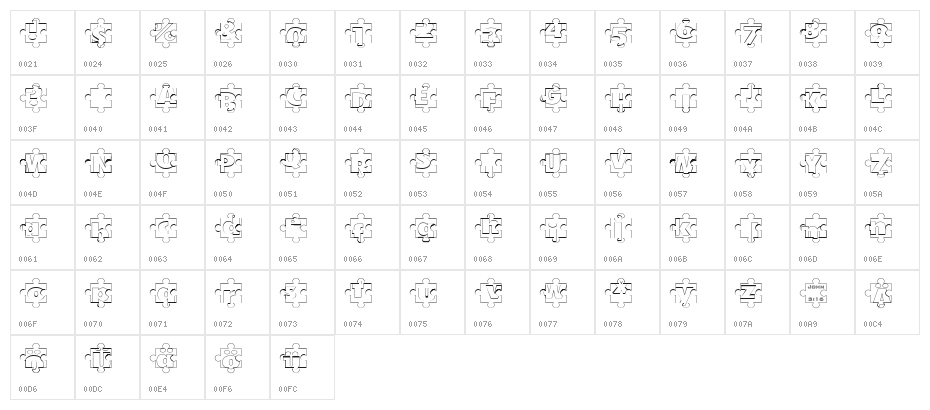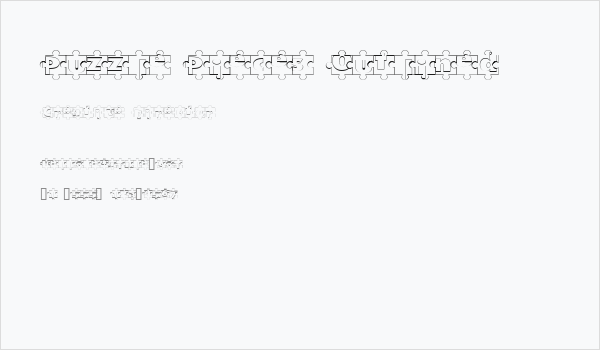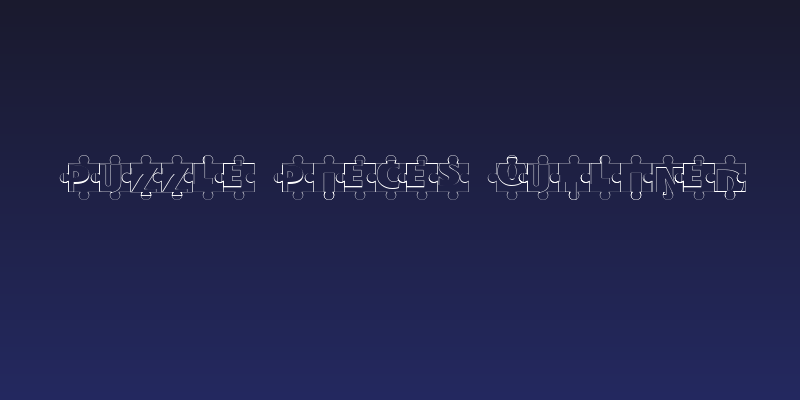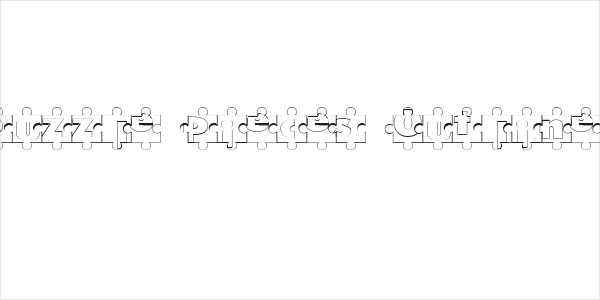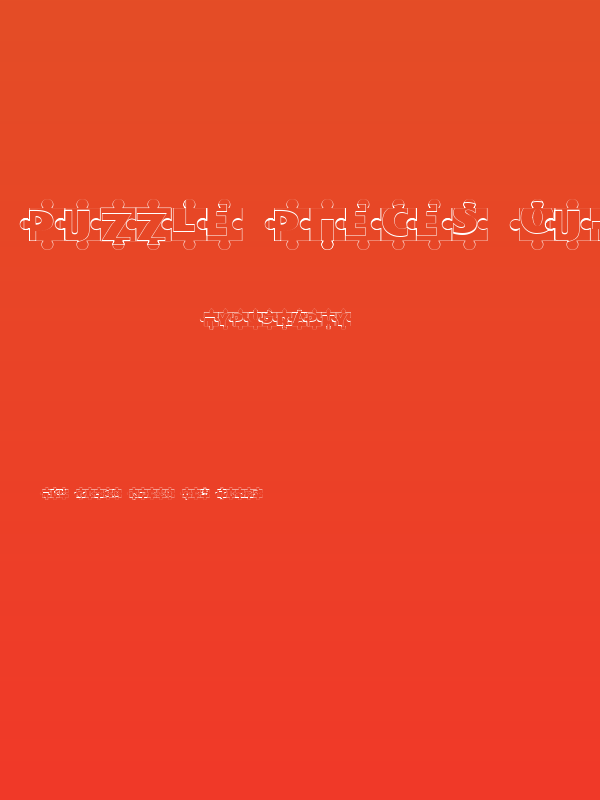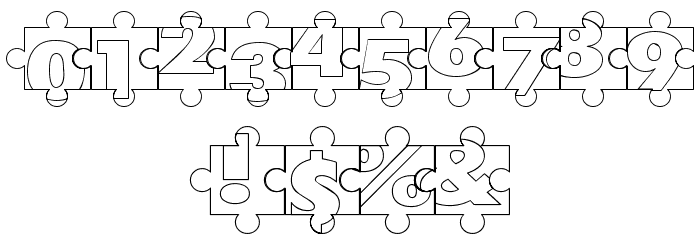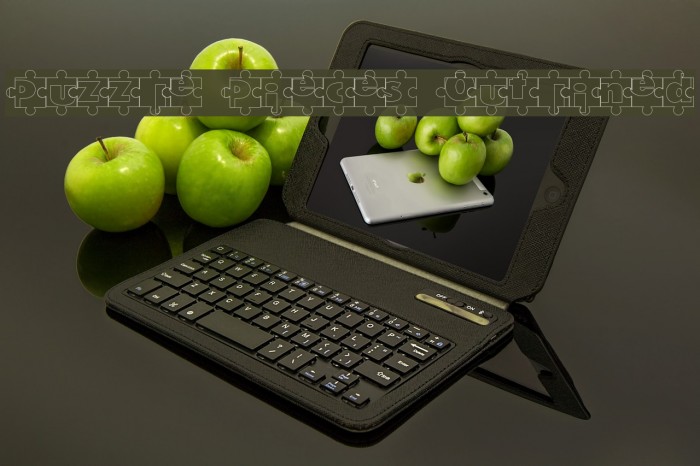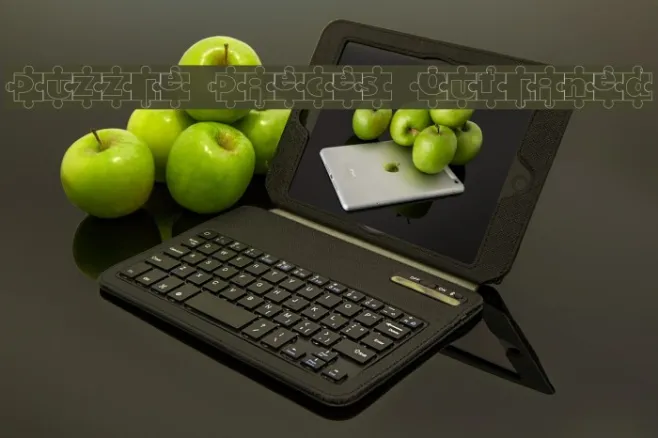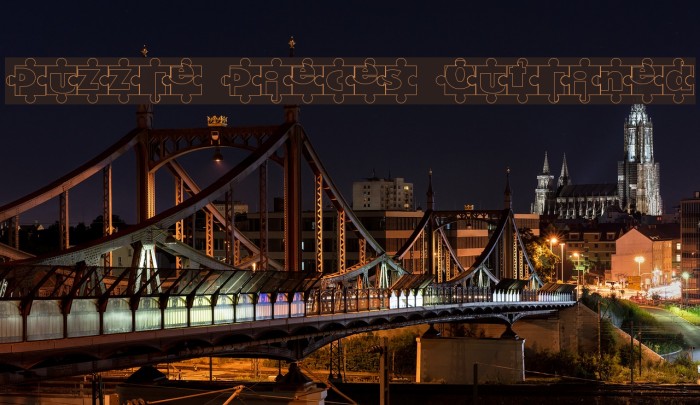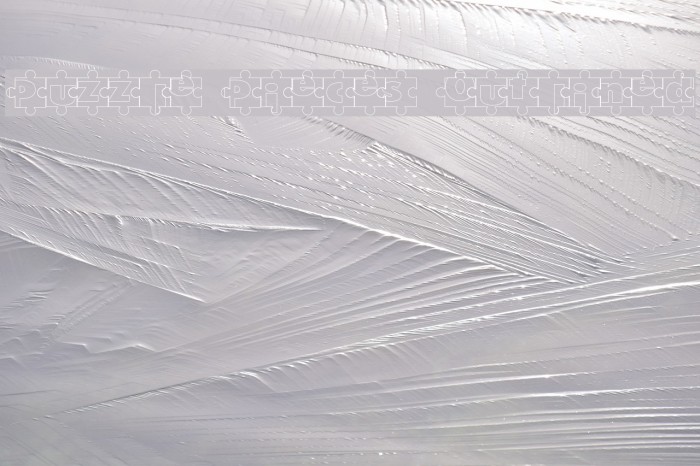
Puzzle Pieces Outlined Font
Puzzle Pieces Outlined Description
This playful and creative font features characters that are uniquely designed to resemble puzzle pieces. Each letter and number is outlined with a bold, black line, giving it a distinct and eye-catching appearance. The characters fit together like pieces of a jigsaw puzzle, creating a cohesive and interconnected look. This font is perfect for projects that require a fun and engaging visual element, such as children's books, educational materials, or playful branding. The design is both modern and whimsical, making it suitable for a variety of creative applications.
| Overall Style | Playful, Modern, Whimsical |
| Use Case | Headlines, Logos, Creative Designs |
| Proposed Projects | Ideal for children's books, educational materials, playful branding, and creative designs. |